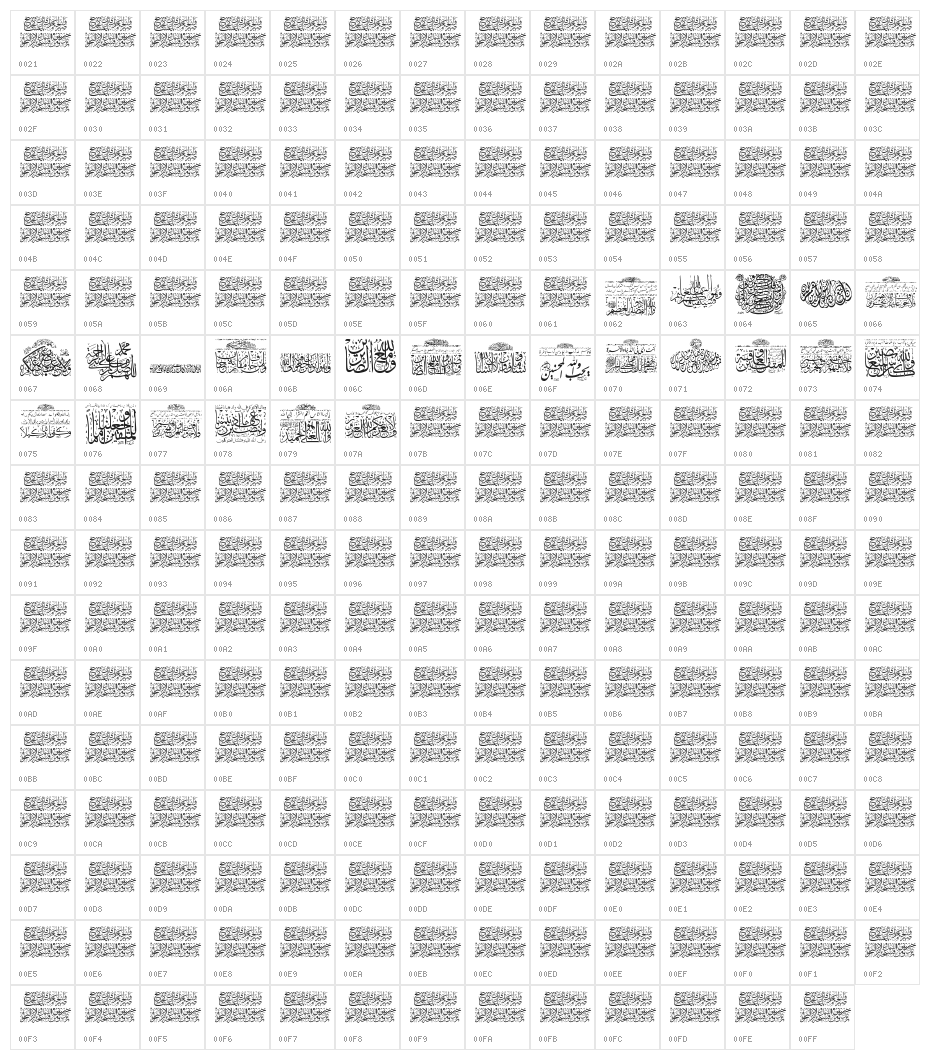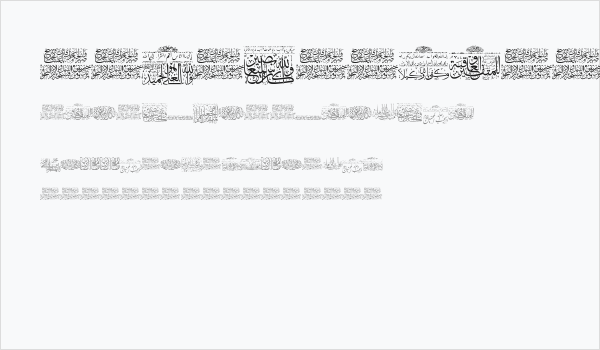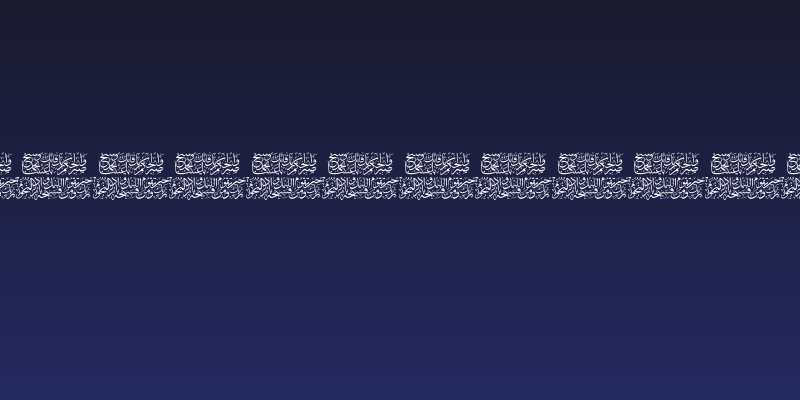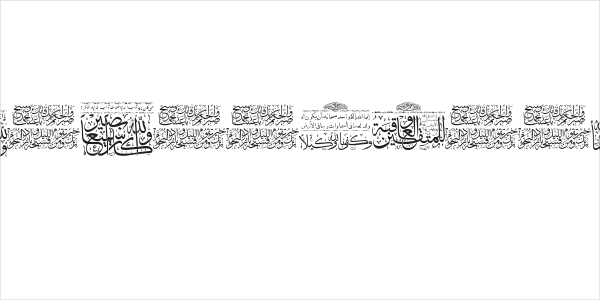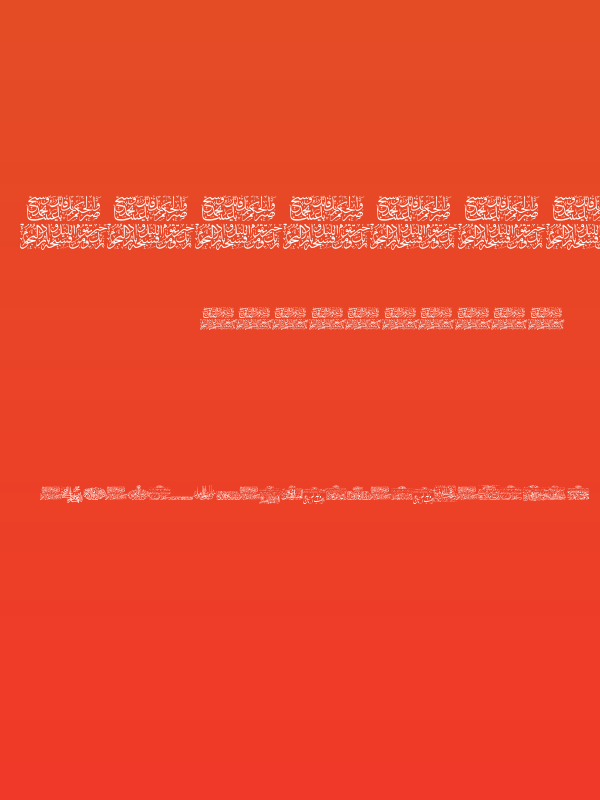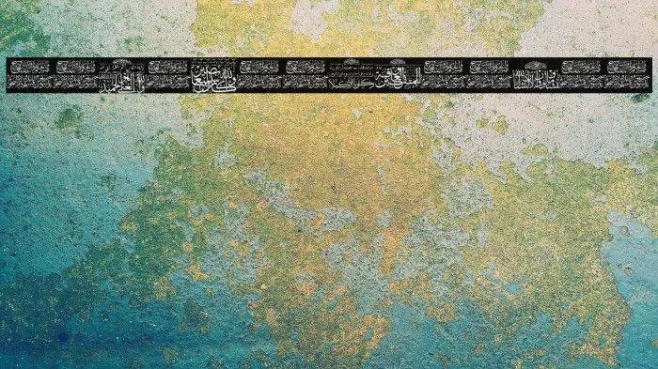
Aayat Quraan 4 Font
Aayat Quraan 4 Description
Highly ornate Arabic script with intricate calligraphic details, featuring varying stroke thickness and elaborate flourishes, commonly used in religious or ceremonial contexts.
| Overall Style | Decorative, Traditional, Religious |
| Use Case | Religious scripture, Art pieces, Ceremonial documents |
| Proposed Projects | Religious texts, ceremonial documents, decorative art, Quranic verses, traditional invitations. |